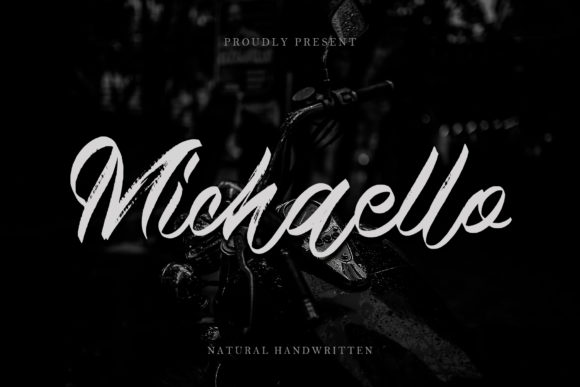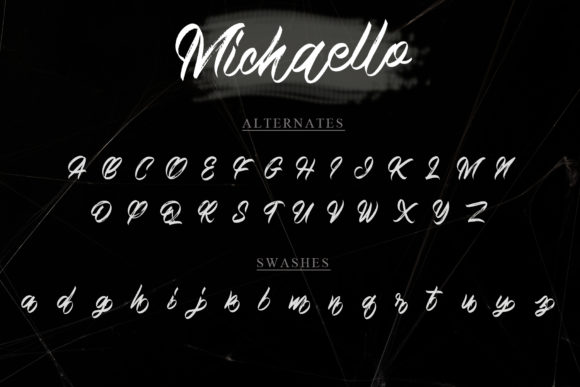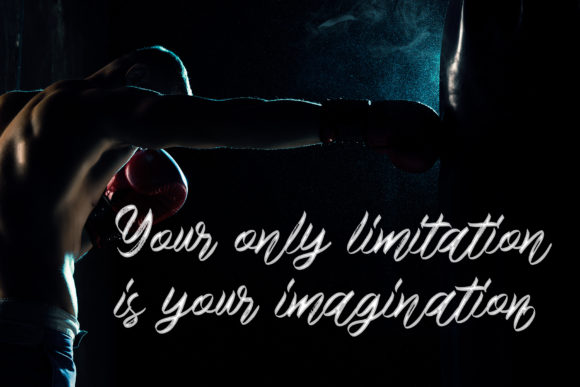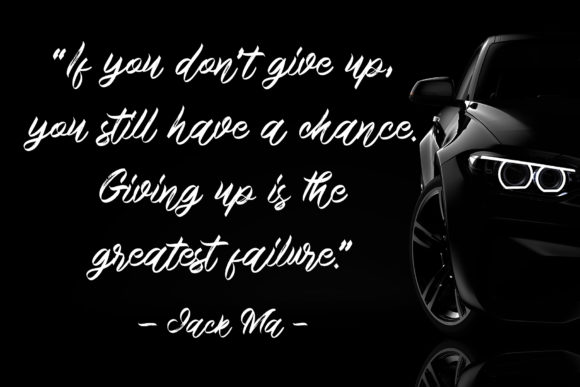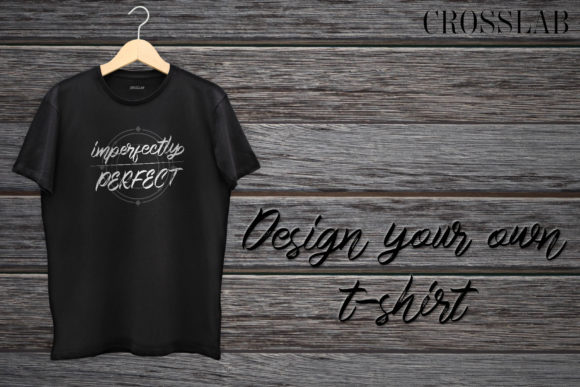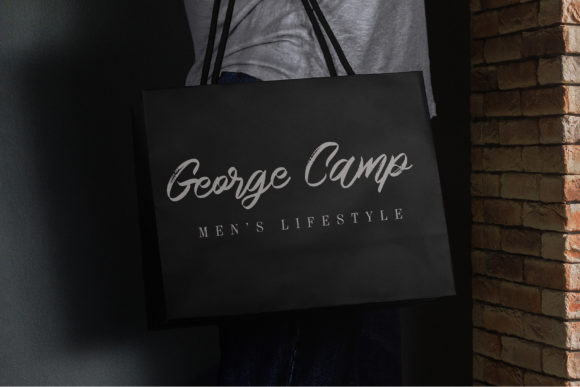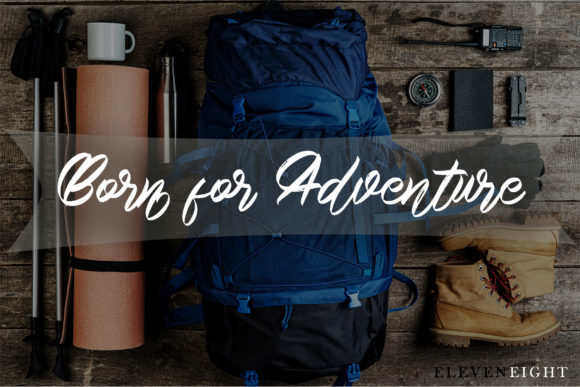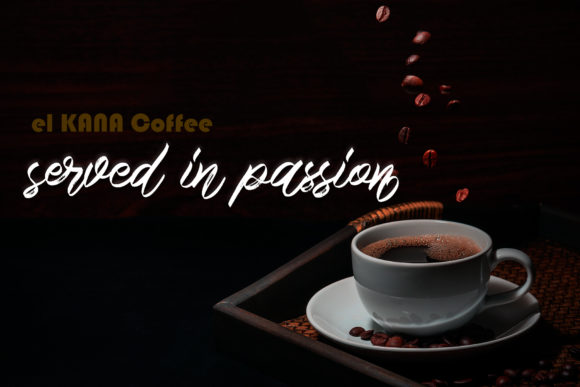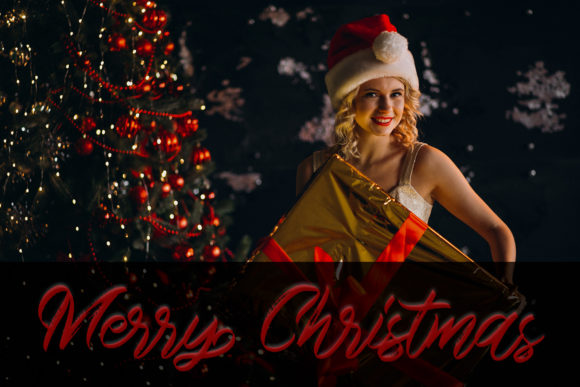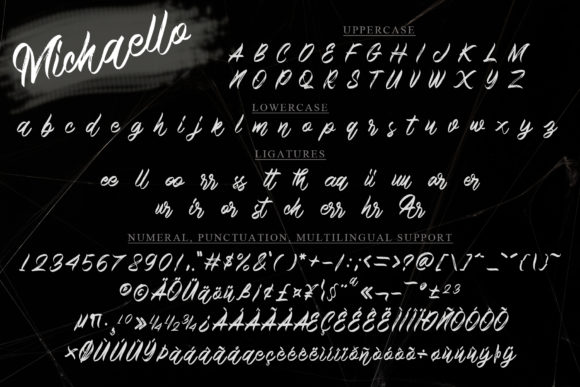
Michaello Font
About Michaello Font
Michaello is a casual and natural handwritten font, with an incredibly friendly feel and a stunning brush texture. It is the perfect font for making original and outstanding designs. This font is PUA encoded which means you can access all of the glyphs and swashes with ease!